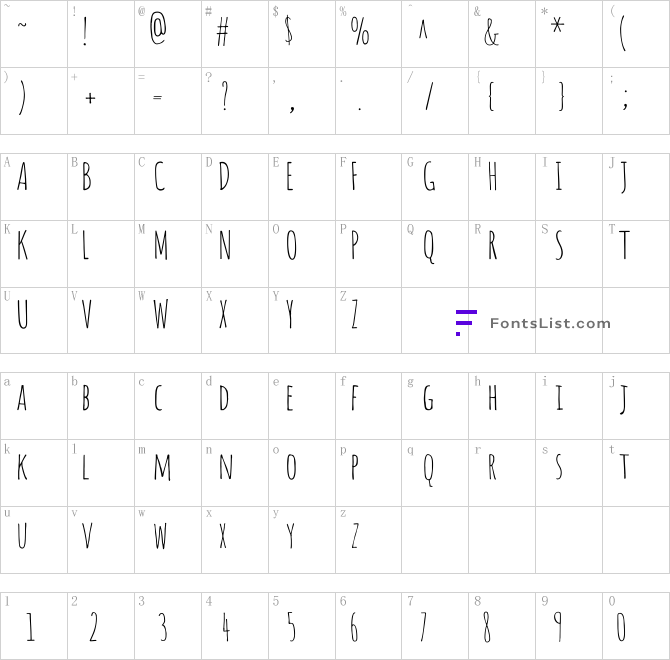
- Font Name:Amatica SC
AmaticaSC-Regular.ttf is a very beautiful artistic font, AmaticaSC-Regular.ttf is widely used in the design and printing of various books and pictures,AmaticaSC-Regular.ttf has a strong visual impact,AmaticaSC-Regular.ttf is a commonly used font in newspapers, magazines and books, and is used in posters, e-commerce Poster design, store design, logo design, font design and other fields.AmaticaSC-Regular.